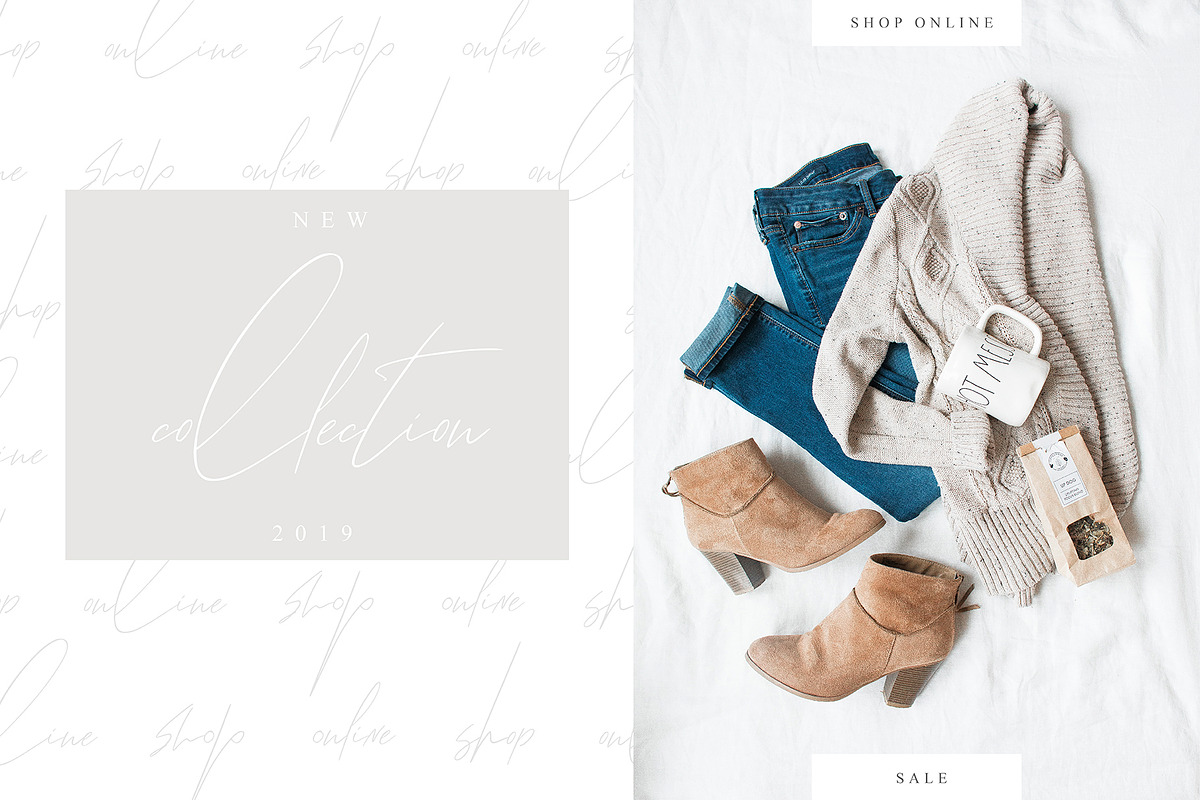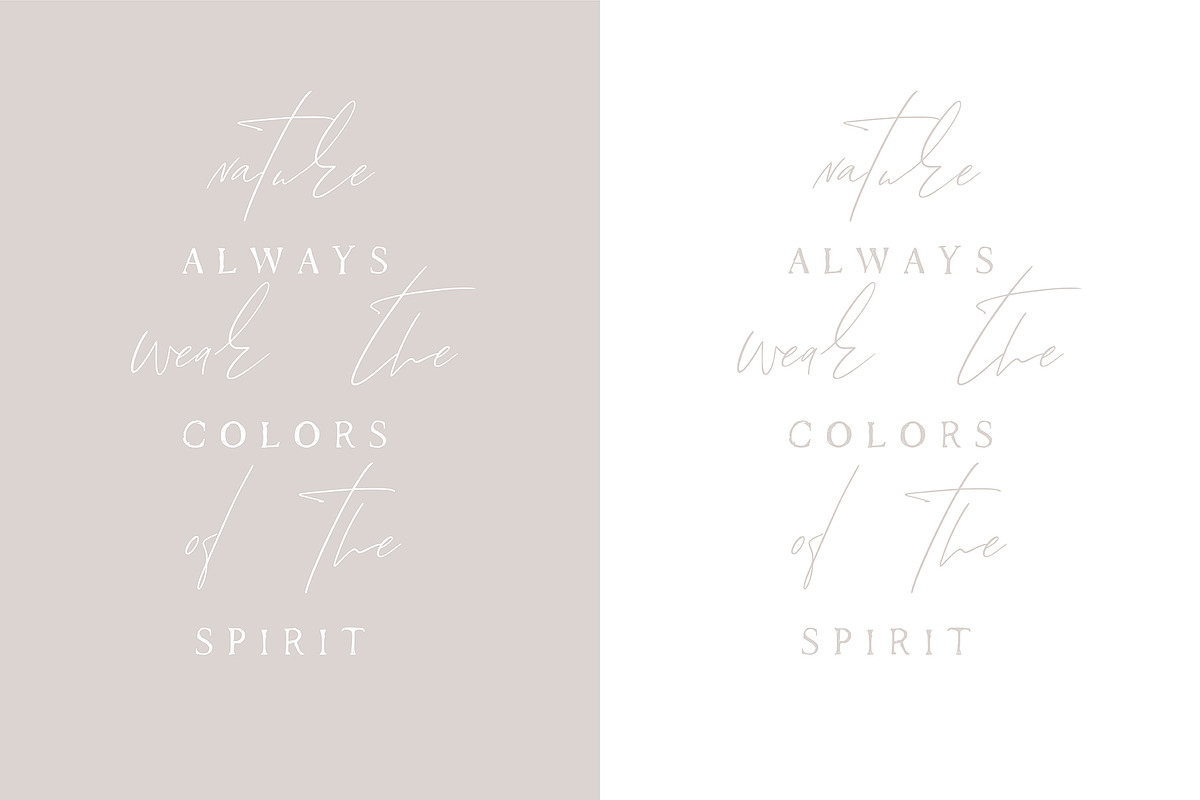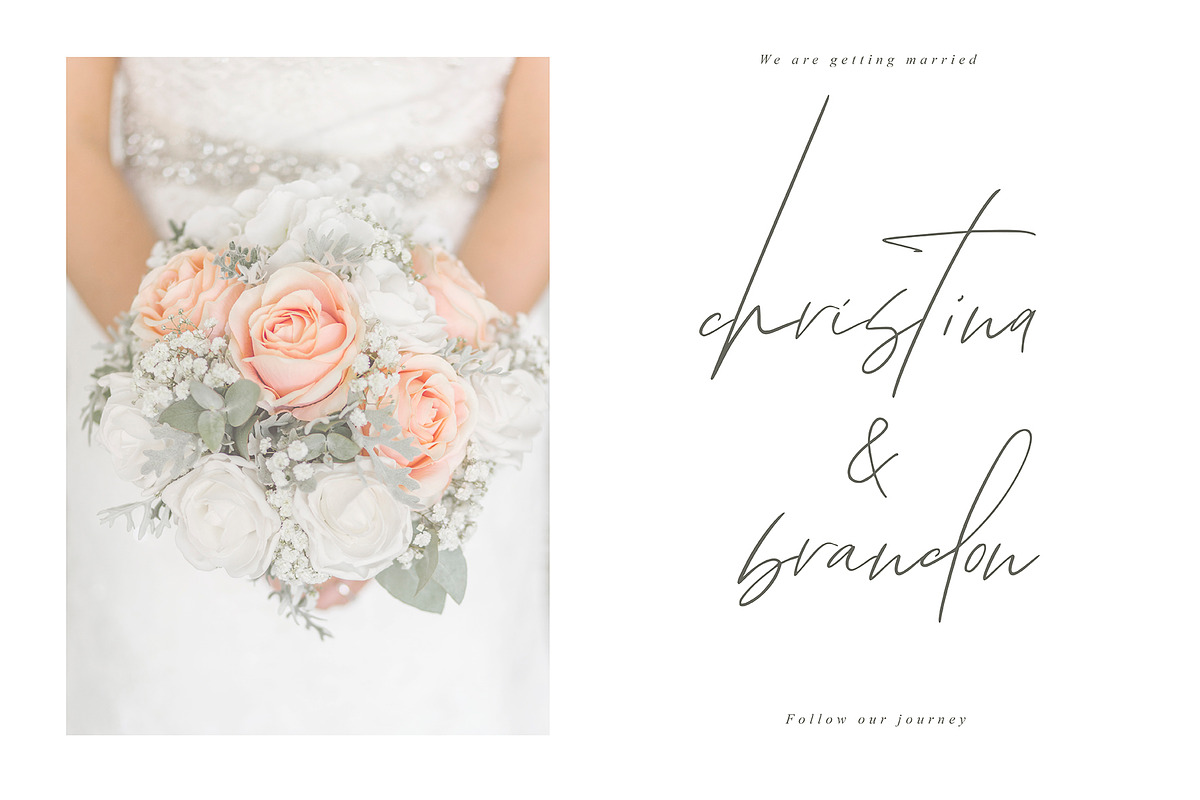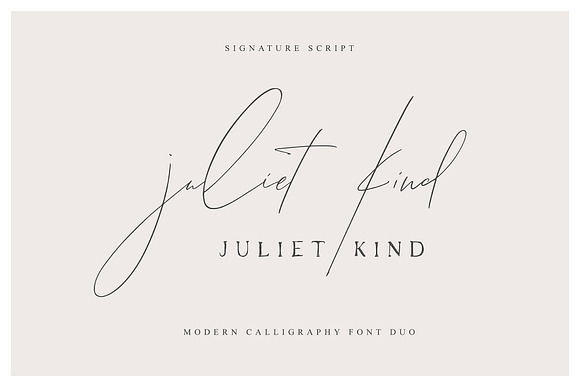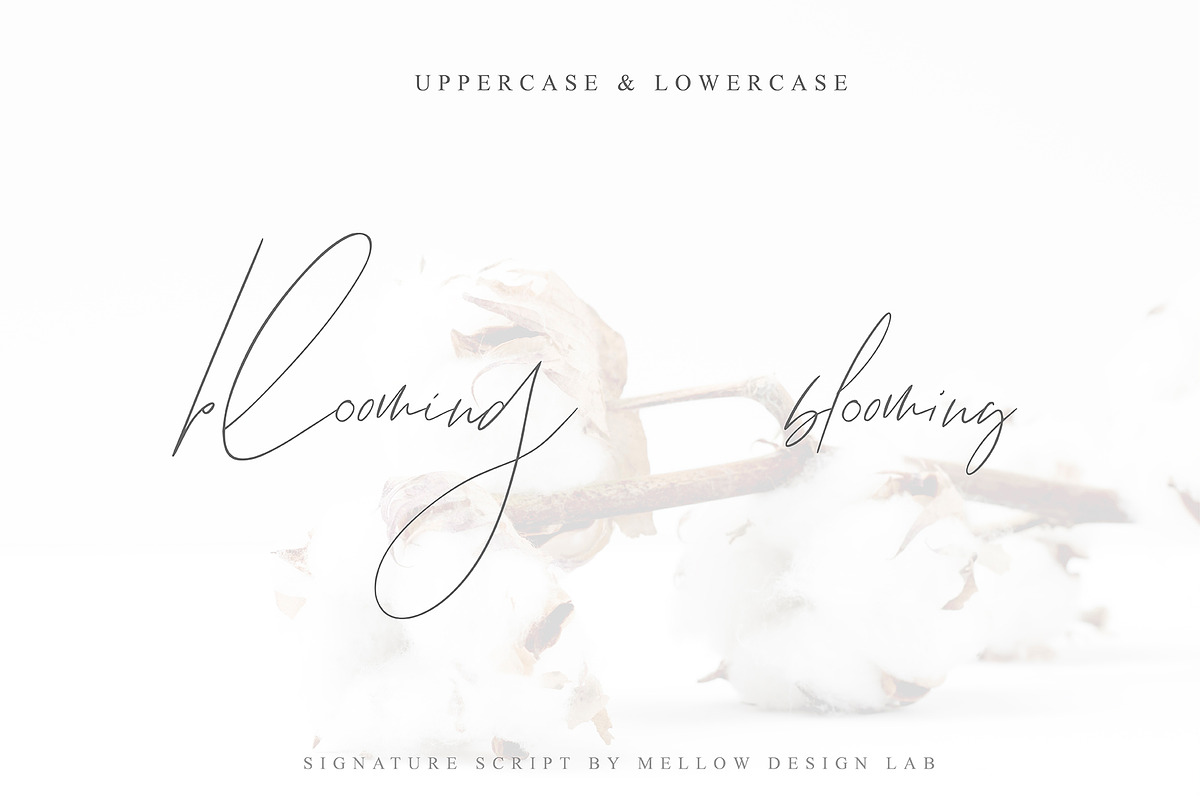
Juliet Kind Font DUO
Introducing the lovely new Juliet Kind Script
This font is especially for you if you need to add tenderness to your project. A font that looks absolutely handwritten and created by hand. Combine it with other fonts and add style in your project. This handwritten font is ideal for branding and decorate your any project.
This font are perfect for wedding invitation or your blog. Also with their help, you can create a logo or beautiful frame for your home. Or just use for your small business, book covers, stationery, marketing, magazines and more.